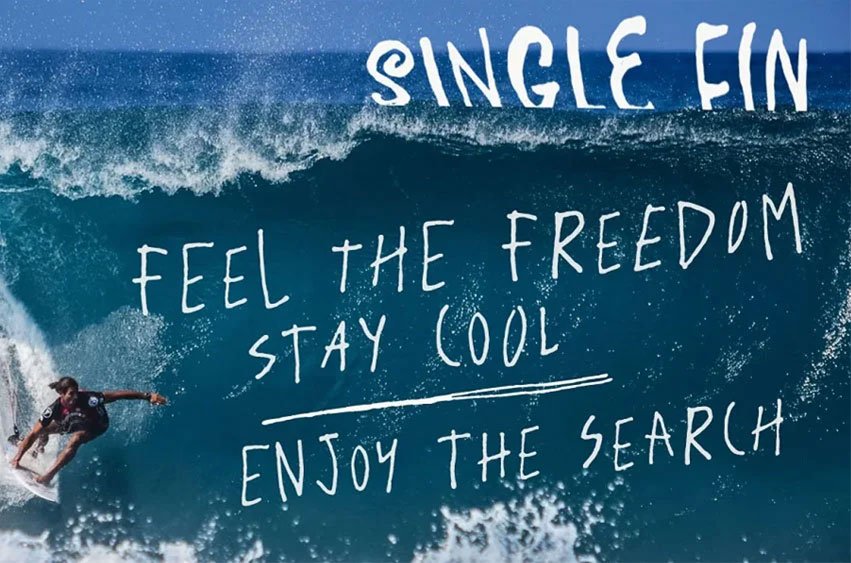
Plunct Font is an original font duo that plays super nice together, both loaded with alternates for an impressive natural look.
- Plunct is a thin handwritten font and brings 4 options for each letter and 2 for each numeral.
- Plact is a bold handwritten font and brings 3 options for each letter and 2 for each numeral.
Both fonts have Contextual Alternates functionality and will cycle all these glyphs at the click of a button, making your message look truly handcrafted.